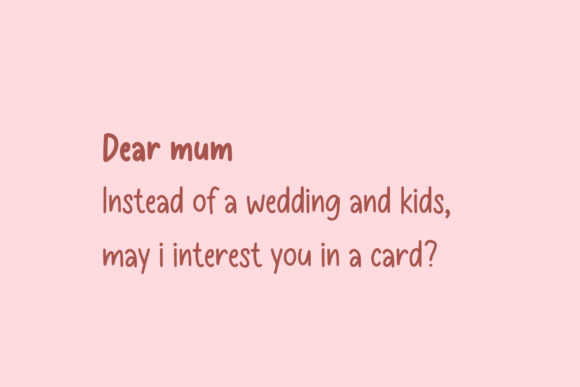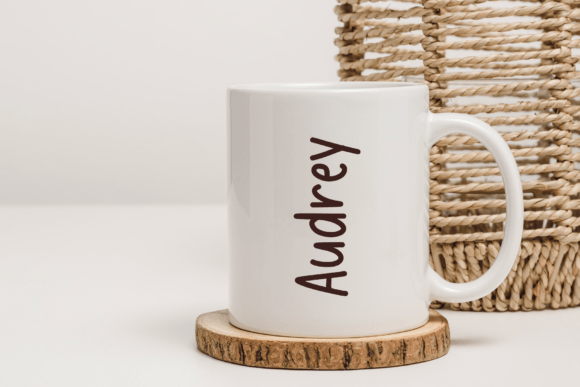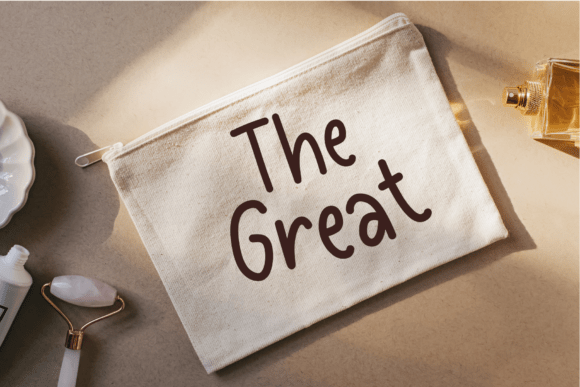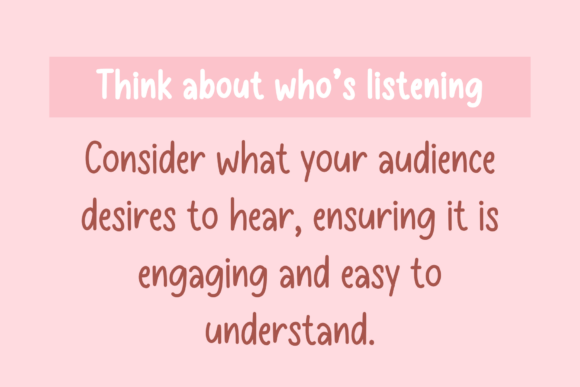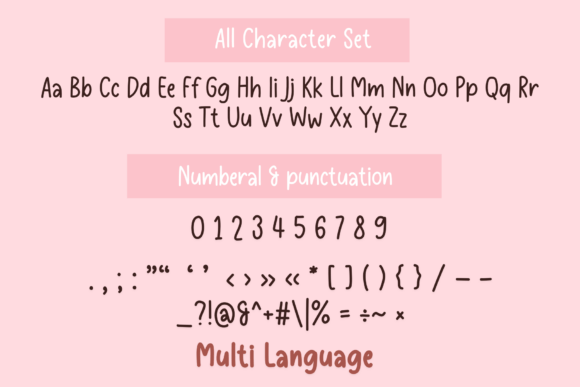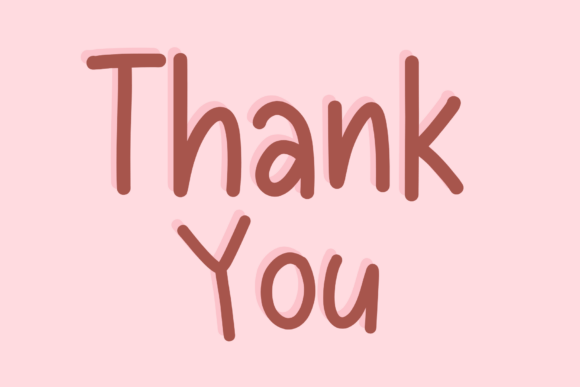
Breezy Notes Font: Add a Touch of Whimsy to Your Designs
Are you tired of using the same old fonts in your designs? Do you want to add a touch of playfulness and authenticity to your projects? Look no further than the Breezy Notes font! This beautiful handwritten font is perfect for designers and crafters who want to add a personal touch to their work.
What is Breezy Notes Font?
Breezy Notes is a handwritten font that embodies playfulness and authenticity. It’s a unique and charming font that’s perfect for a wide range of projects, from blog posts and logos to branding, ads, invitations, greeting cards, planners, photo albums, decorations, and much more.
Characteristics of Breezy Notes Font
The Breezy Notes font has several characteristics that make it stand out from other fonts. Here are a few:
- Handwritten look: Breezy Notes has a beautiful, handwritten look that’s perfect for adding a personal touch to your designs.
- Playful feel: This font has a playful feel that’s perfect for designs that need to be fun and engaging.
- Authentic look: Breezy Notes has an authentic look that’s perfect for designs that need to look like they were created by hand.
- Versatile: This font is versatile and can be used for a wide range of projects, from digital designs to print projects.
Uses for Breezy Notes Font
The Breezy Notes font is perfect for a wide range of projects, including:
- Blog posts: Add a touch of whimsy to your blog posts with the Breezy Notes font.
- Logos and branding: Use Breezy Notes to create a unique and memorable logo for your brand.
- Ads: Make your ads stand out with the playful and authentic look of Breezy Notes.
- Invitations and greeting cards: Add a personal touch to your invitations and greeting cards with Breezy Notes.
- Planners and photo albums: Use Breezy Notes to add a touch of whimsy to your planners and photo albums.
- Decorations: Use Breezy Notes to create beautiful decorations for your home or office.
Why Choose Breezy Notes Font?
There are many reasons to choose Breezy Notes font for your designs. Here are a few:
- Unique look: Breezy Notes has a unique look that’s sure to make your designs stand out.
- Easy to read: This font is easy to read, even in small sizes.
- Versatile: Breezy Notes can be used for a wide range of projects, from digital designs to print projects.
- High-quality: This font is high-quality and will look great in any design.
The Breezy Notes font is a beautiful and versatile font that’s perfect for designers and crafters who want to add a touch of whimsy to their designs. With its handwritten look, playful feel, and authentic look, Breezy Notes is sure to make your designs stand out. Whether you’re creating digital designs or print projects, Breezy Notes is a great choice. So why not give it a try and see the results for yourself?